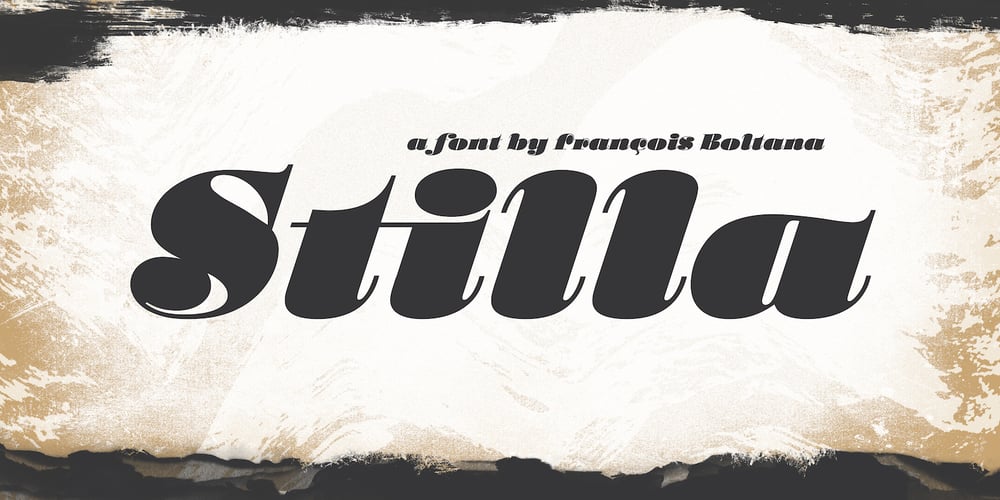
Stilla Font Family was designed by François Boltana and published by Linotype. Stilla contains 1 styles and family package options. François Boltana was a French prolific lettering artist during the late 20th Century. He created the Stilla typeface in 1973. Stilla is a cursive “Fat Face”-style design, reminiscent of the first large advertising and display types produced in the wake of the successful Bodoni, Didot, and Walbaum text faces. Because of this pedigree, Stilla is the perfect headline choice for applications that look back to the 19th century. Stilla could also be used for very short headlines or big logos.